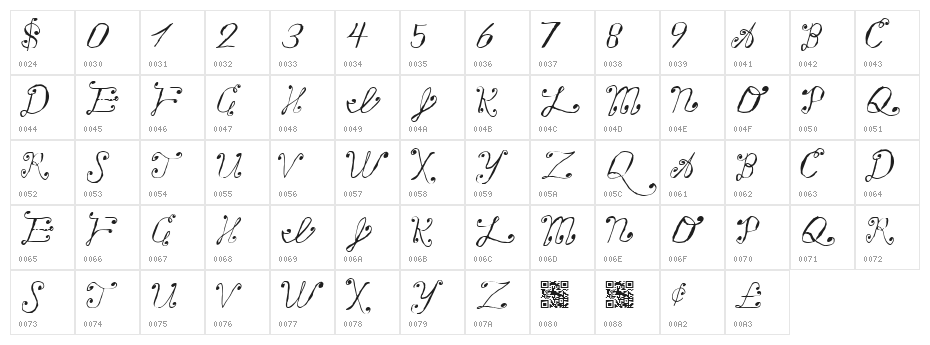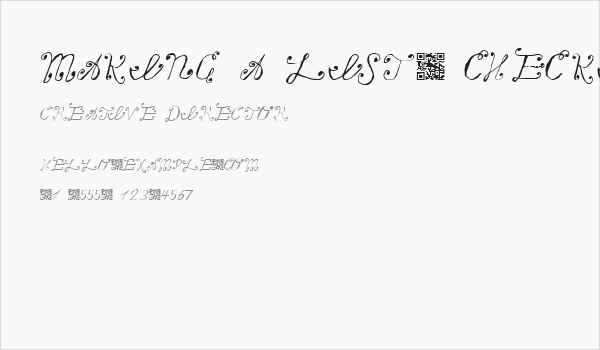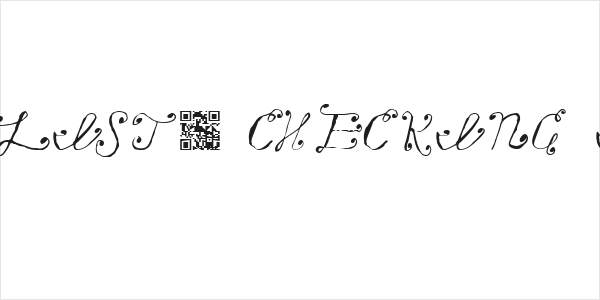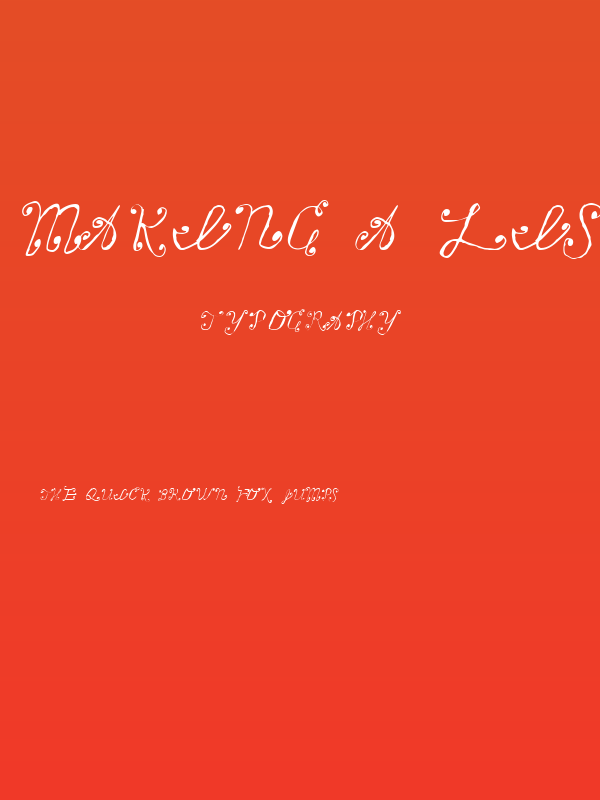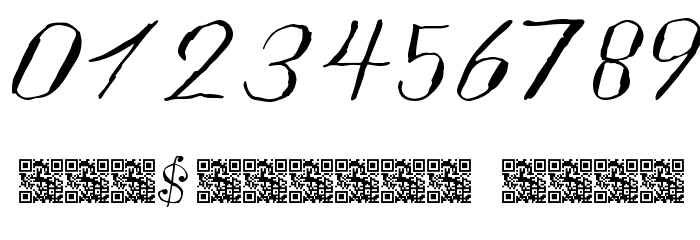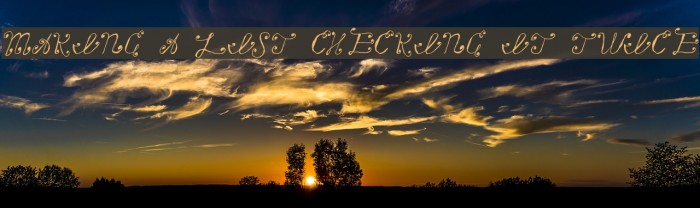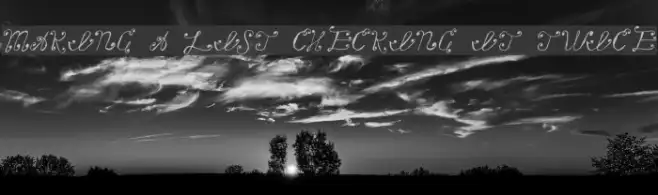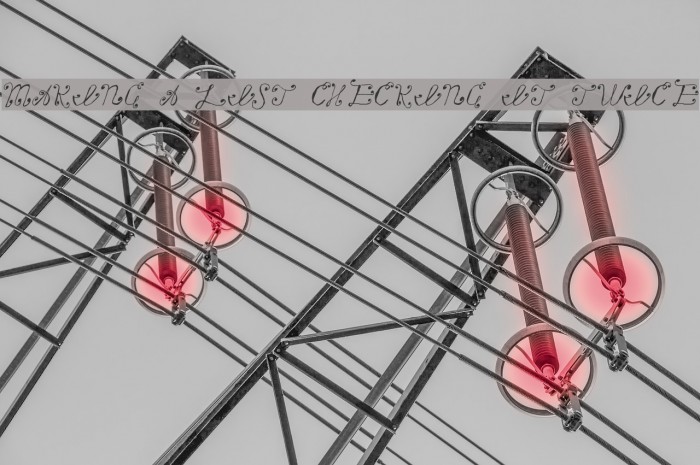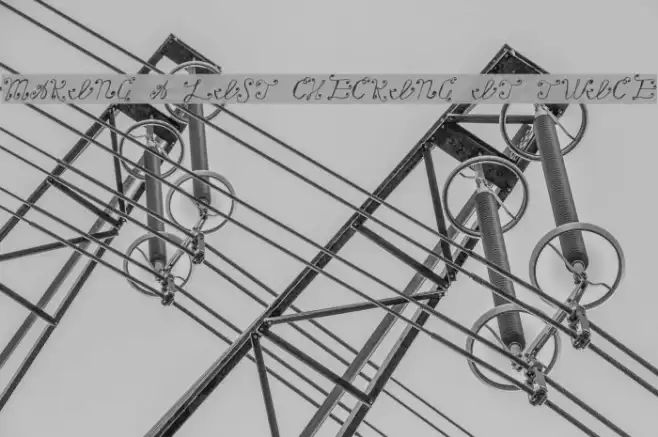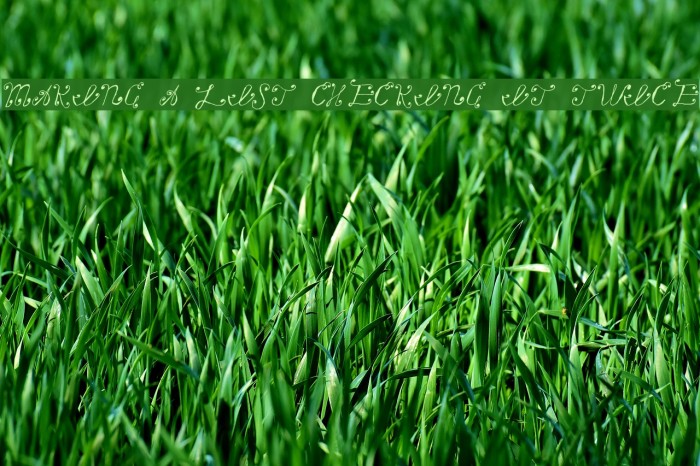
Making a List, Checking It Twice Font
Making a List, Checking It Twice Description
This font features an elegant and whimsical script style, characterized by its flowing, cursive letters with decorative swirls and loops. The uppercase letters are particularly ornate, with each character exhibiting unique embellishments that add a touch of sophistication and playfulness. The lowercase letters maintain a consistent style, complementing the uppercase with their own subtle flourishes. The numerals are bold and slightly slanted, maintaining the overall artistic theme. This font is perfect for creating a sense of elegance and charm, making it ideal for invitations, greeting cards, and other creative projects that require a personal touch.
| Proposed Projects | Ideal for invitations, greeting cards, personal branding, and decorative signage. |